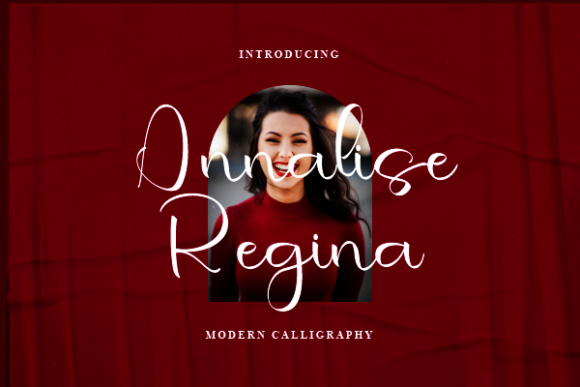
Discover the Joy of Annalise Regina Font
Do you remember the thrill of designing your first project? The excitement of seeing your ideas come to life, and the sense of accomplishment when it’s all done? For many designers, that feeling never gets old, and it’s what drives us to keep creating and pushing the boundaries of what’s possible.
That’s why we’re excited to introduce you to the Annalise Regina Font, a beautiful script font that adds a touch of whimsy and charm to any design. This lovely font features playful characters that seem to dance along the baseline, making it perfect for adding a personal touch to your creative projects. Whether you’re designing a wedding invitation, a children’s book, or a social media post, the Annalise Regina Font is sure to make your design stand out.
As a valuable addition to any designer’s toolkit, the Annalise Regina Font offers a unique and versatile way to express yourself and bring your ideas to life. Its charming, handwritten feel makes it a great choice for any project where you want to add a touch of personality and flair.
Annalise Regina Font Key Features
- Unique Characteristics: Elegant script font with intricate details, perfect for formal and high-end designs, wedding invitations, and luxury branding
- Font Style: Script, elegant, formal, high-end
Annalise Regina Font Review
The Annalise Regina font is a beautiful, elegant script font that exudes sophistication and refinement. I was immediately drawn to its flowing lines and delicate curves, which make it perfect for creating eye-catching titles and headings.
Here are some things that work well with this font: ✨ Elegant script style that’s perfect for formal and elegant designs ✨ Beautiful flowing lines and delicate curves ✨ Highly legible, even at smaller font sizes
However, there are some limitations to consider: ⚠️ The font may be too ornate for some designs, which can make it overwhelming ⚠️ It’s not ideal for body text, as it can be difficult to read in large quantities ⚠️ Some users may find the font too feminine or cursive for their taste
In terms of overall impression, I think the Annalise Regina font is a great choice for designers who want to add a touch of elegance to their projects. It’s perfect for formal invitations, wedding stationery, and other high-end designs. However, it may not be the best choice for more casual or modern designs.
Overall, I give the Annalise Regina font 4 out of 5 stars. It’s a beautiful and elegant font that’s sure to impress, but it may not be suitable for every design project.
- ✨ Elegant script style
- ✨ Beautiful flowing lines and delicate curves
- ✨ Highly legible
- ⚠️ Too ornate for some designs
- ⚠️ Not ideal for body text
- ⚠️ May be too feminine or cursive for some users
Annalise Regina Font: A Practical Application Guide
Use the Annalise Regina Font for elegant and sophisticated designs, such as wedding invitations, luxury branding, and high-end packaging.
Experiment with different font sizes, colors, and styles to create a unique and eye-catching design.
Luxury branding and packaging
High-end business cards and letterheads
Special occasion designs, such as birthday and anniversary invitations
Alternatives to Annalise Regina Font for Designers
Great Vibes is a beautiful, elegant script font that works well for wedding invitations, event branding, and other formal designs. Its flowing lines and soft curves evoke a sense of sophistication and romance. It’s a great alternative to Annalise Regina for designers who want a more refined and polished look.
Comparison to Annalise Regina: Great Vibes has a more refined and elegant feel, while Annalise Regina has a softer, more whimsical touch. Great Vibes is ideal for formal designs, while Annalise Regina is better suited for casual and creative projects.